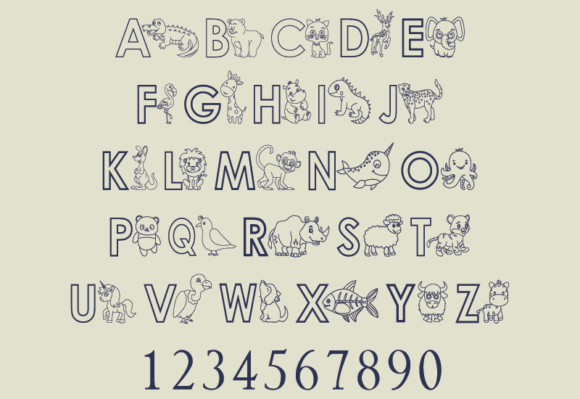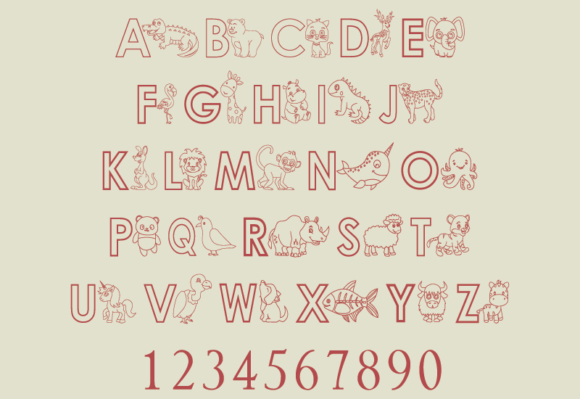
Introducing Alphabet Coloring Font: Add a Touch of Whimsy to Your Designs
Are you looking for a font that can add a playful and charming touch to your design projects? Look no further than Alphabet Coloring Font! This delightful font is perfect for designers, crafters, and artists who want to infuse their work with a sense of wonder and magic. In this article, we’ll explore the features and benefits of Alphabet Coloring Font, and show you how to make the most of this beautiful and versatile font.
What is Alphabet Coloring Font?
Alphabet Coloring Font is a decorative font that is designed to evoke a sense of childhood wonder and curiosity. This font features intricate details, fanciful flourishes, and a playful charm that is sure to delight viewers of all ages. With its whimsical and imaginative design, Alphabet Coloring Font is perfect for a wide range of design projects, from children’s books and greeting cards to invitations and more.
Key Features of Alphabet Coloring Font
So, what makes Alphabet Coloring Font so special? Here are just a few of its key features:
• Intricate details: Alphabet Coloring Font features intricate details and patterns that add depth and visual interest to your designs.
• Fanciful flourishes: This font includes a range of fanciful flourishes and swashes that can be used to add a touch of elegance and sophistication to your work.
• Childlike charm: Alphabet Coloring Font has a playful, childlike charm that is sure to delight viewers of all ages.
• Versatile: This font is versatile and can be used for a wide range of design projects, from digital designs to print materials.
Uses for Alphabet Coloring Font
So, what can you use Alphabet Coloring Font for? The possibilities are endless! Here are just a few ideas to get you started:
• Children’s books: Alphabet Coloring Font is perfect for children’s books, with its playful and imaginative design.
• Greeting cards: Add a touch of whimsy to your greeting cards with Alphabet Coloring Font.
• Invitations: Use Alphabet Coloring Font to create invitations that are sure to delight your guests.
• Digital designs: This font can be used for a wide range of digital designs, from social media graphics to website headers.
• Crafting projects: Alphabet Coloring Font is also perfect for crafting projects, such as scrapbooking and paper crafting.
Tips for Using Alphabet Coloring Font
Here are a few tips for using Alphabet Coloring Font in your designs:
• Experiment with colors: Alphabet Coloring Font looks great in a range of colors, so don’t be afraid to experiment and find the perfect color scheme for your design.
• Mix and match: Try mixing and matching Alphabet Coloring Font with other fonts to create a unique and eye-catching design.
• Use it sparingly: While Alphabet Coloring Font is a beautiful font, it can be overwhelming if used too much. Use it sparingly to add a touch of whimsy to your design.
Alphabet Coloring Font is a beautiful and versatile font that is perfect for designers, crafters, and artists who want to add a touch of whimsy to their work. With its intricate details, fanciful flourishes, and childlike charm, this font is sure to delight viewers of all ages. Whether you’re working on a children’s book, greeting card, or digital design, Alphabet Coloring Font is a great choice. So why not give it a try and see the magic it can bring to your designs?